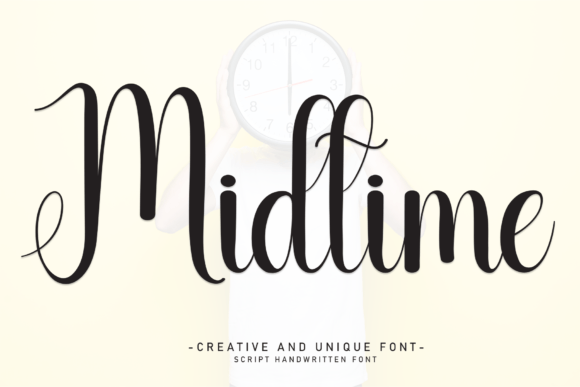
Journey into the world of Midtime Font, a captivating script font family that exudes warmth and charm. Its graceful curves and playful strokes dance across the page, inviting you to express your creativity with a touch of elegance.
Crafted by the skilled hands of William Jhody, Midtime Font is a masterpiece of digital artistry. Each letter is meticulously designed, infused with a distinct personality that shines through in every word you write. Whether you're a seasoned designer or just starting your creative journey, Midtime Font is the perfect companion for your next project.
Immerse yourself in the beauty of Midtime Font, and let your imagination run wild. Picture your wedding invitations, adorned with the delicate swirls of this enchanting font. Envision your greeting cards, radiating with warmth and heartfelt sentiments, thanks to the charm of Midtime Font. And as you create flyers, posters, or social media graphics, let Midtime Font elevate your designs with a touch of sophistication.
But Midtime Font is more than just a pretty face. It's also incredibly versatile, adapting seamlessly to a wide range of creative endeavors. Whether you're designing a resume that demands attention or crafting a captivating logo that leaves a lasting impression, Midtime Font is your trusted ally.
With Midtime Font, you'll discover endless possibilities for self-expression. Its playful nature adds a touch of whimsy to your personal projects, while its refined elegance brings a touch of professionalism to your business ventures.
Don't settle for ordinary fonts that blend into the background. Embrace the extraordinary with Midtime Font, and unleash the full potential of your creativity. Let your designs bloom with beauty, originality, and an undeniable touch of charm. Join the growing community of designers who have fallen in love with Midtime Font, and experience the joy of creating with a font that truly speaks to your soul.
So, embark on a creative adventure with Midtime Font today, and let your imagination soar to new heights. Transform your designs into works of art, and leave a lasting impression on your audience. With Midtime Font by your side, the possibilities are truly limitless.